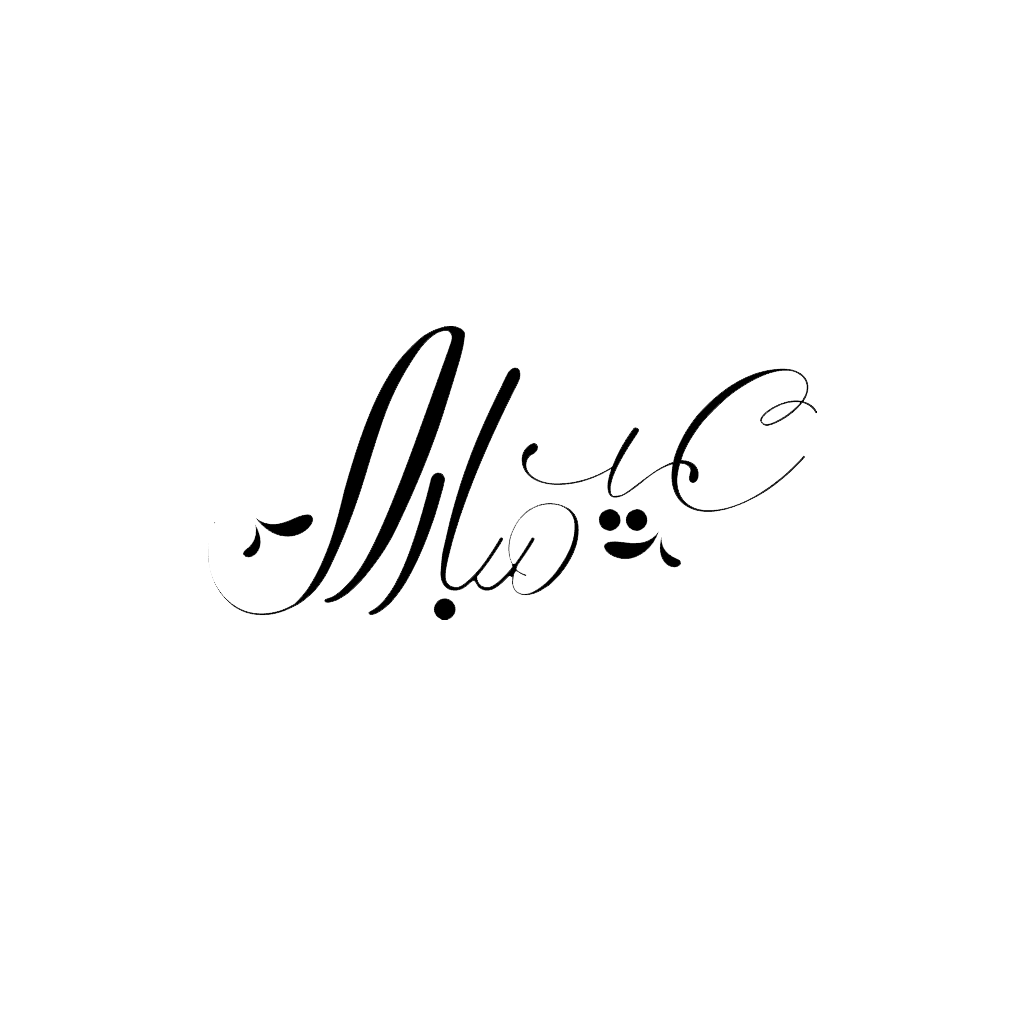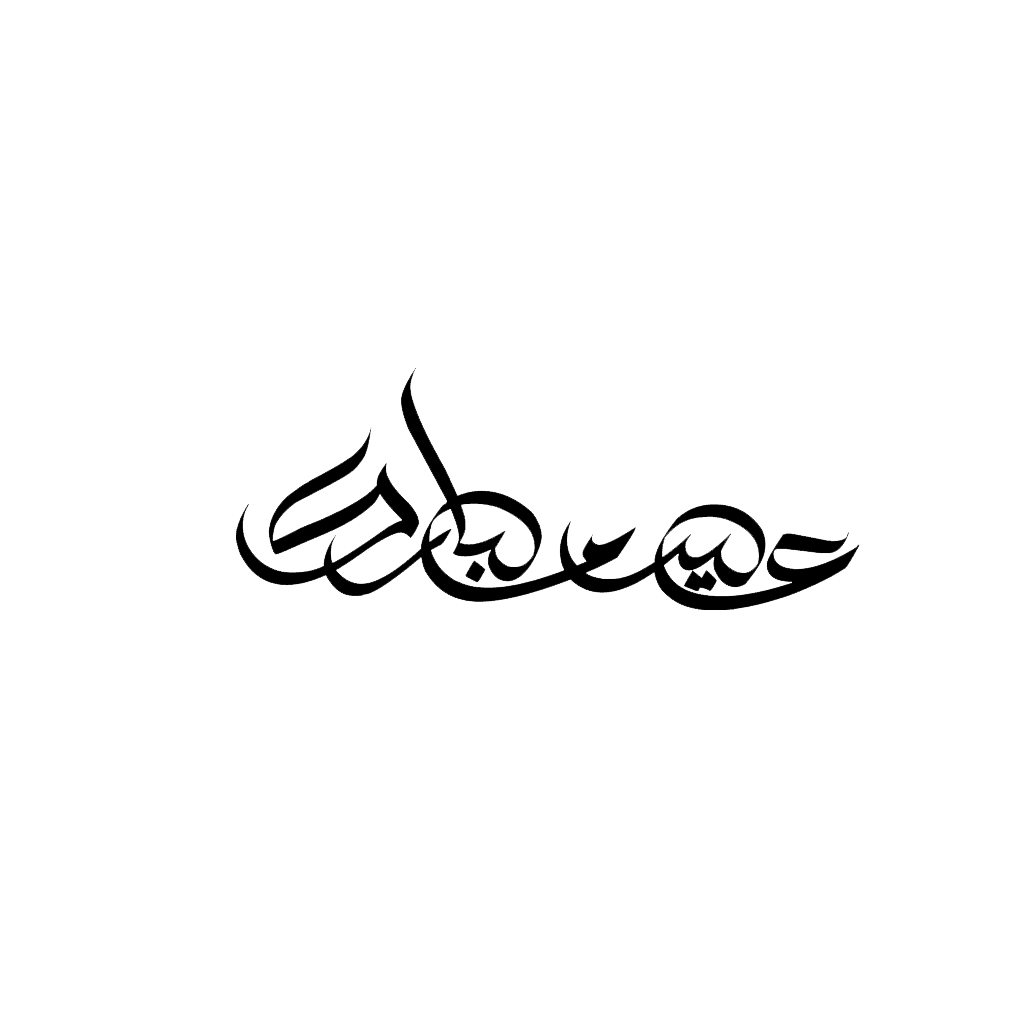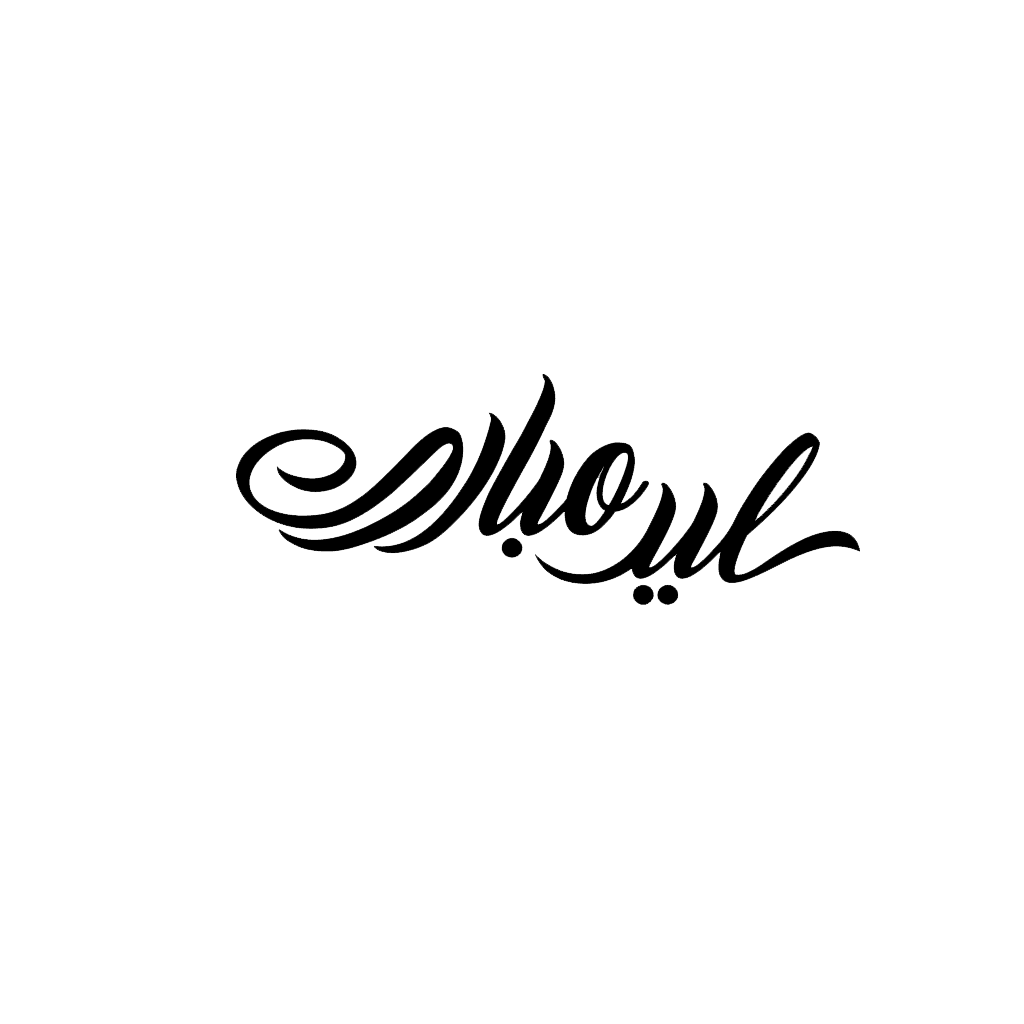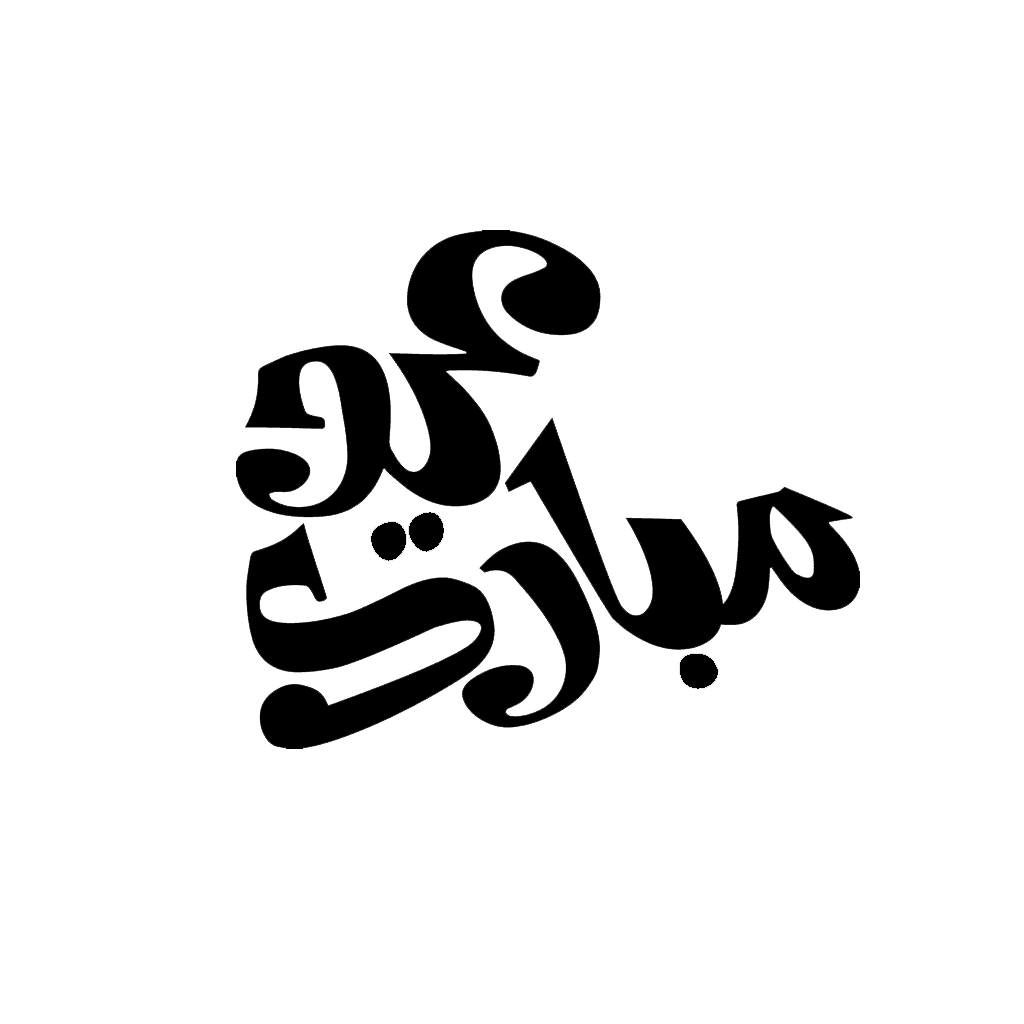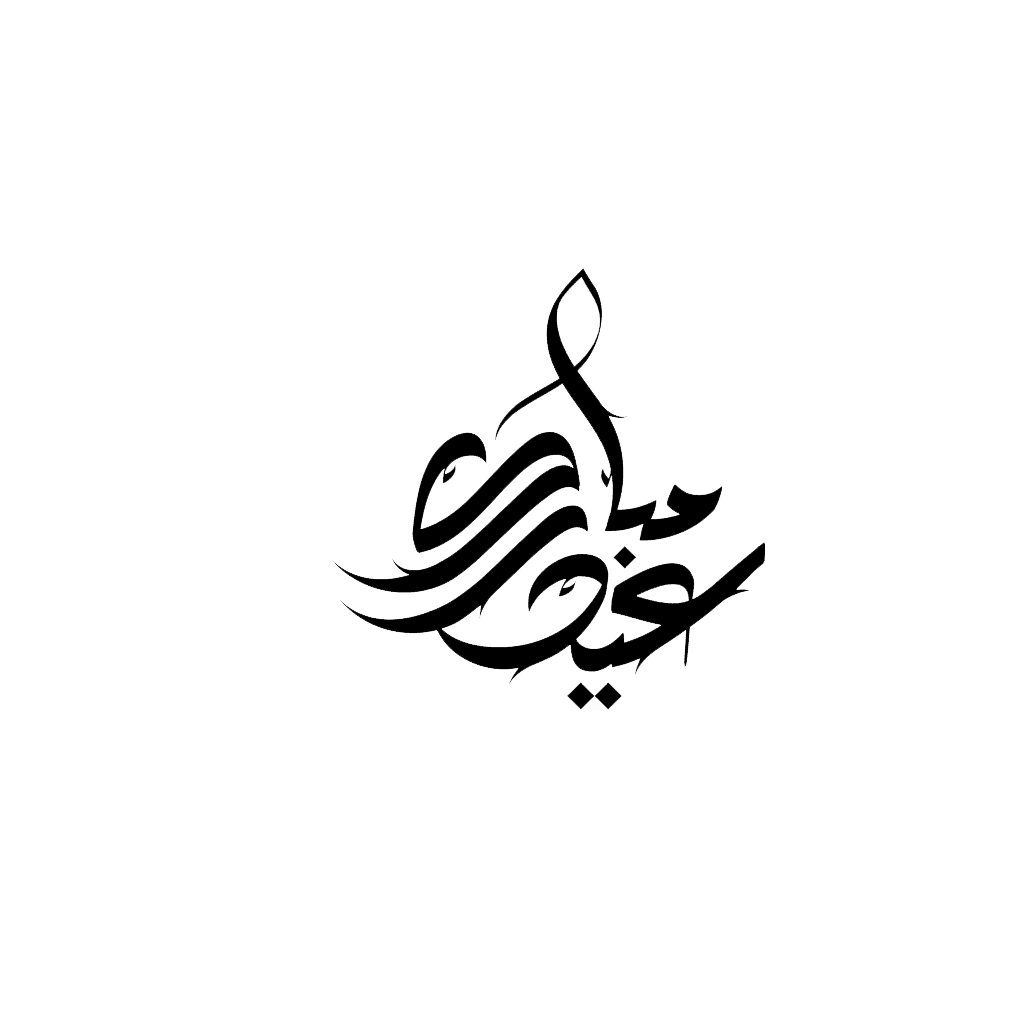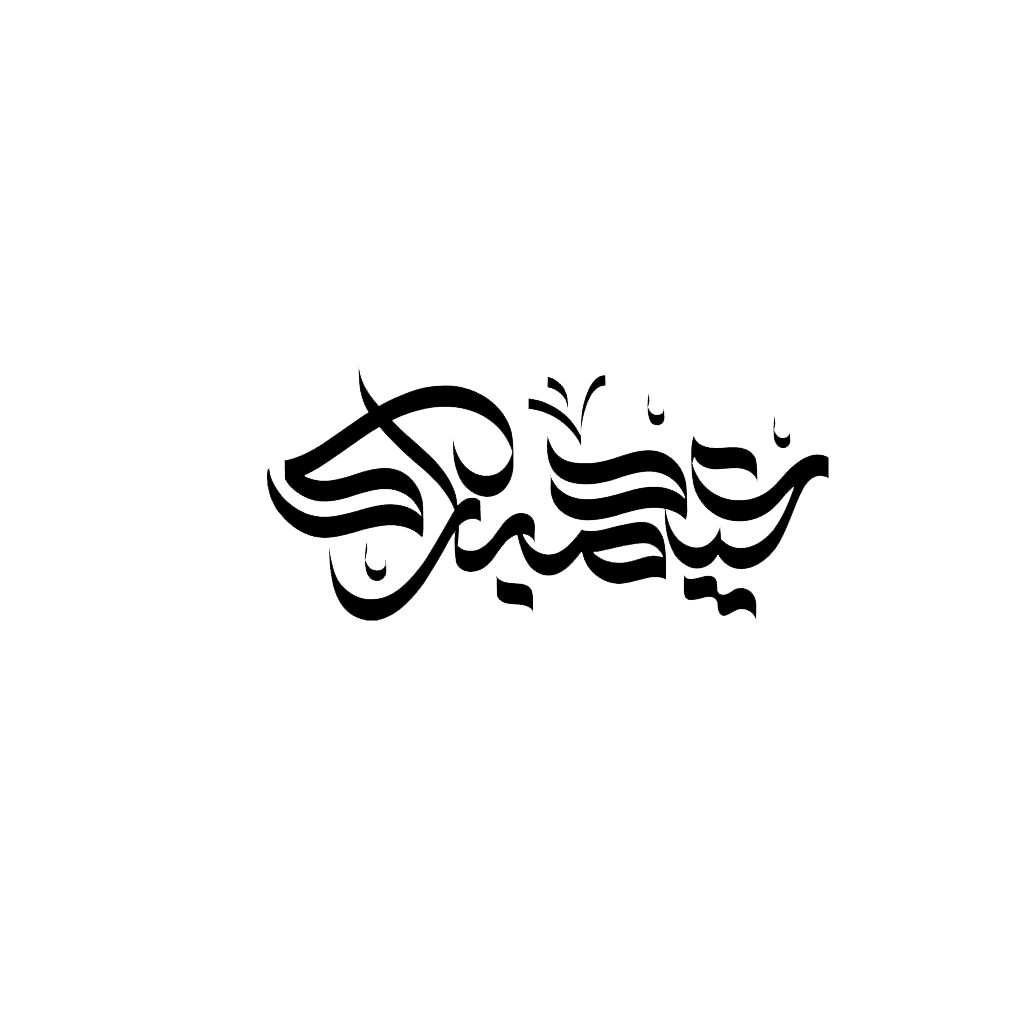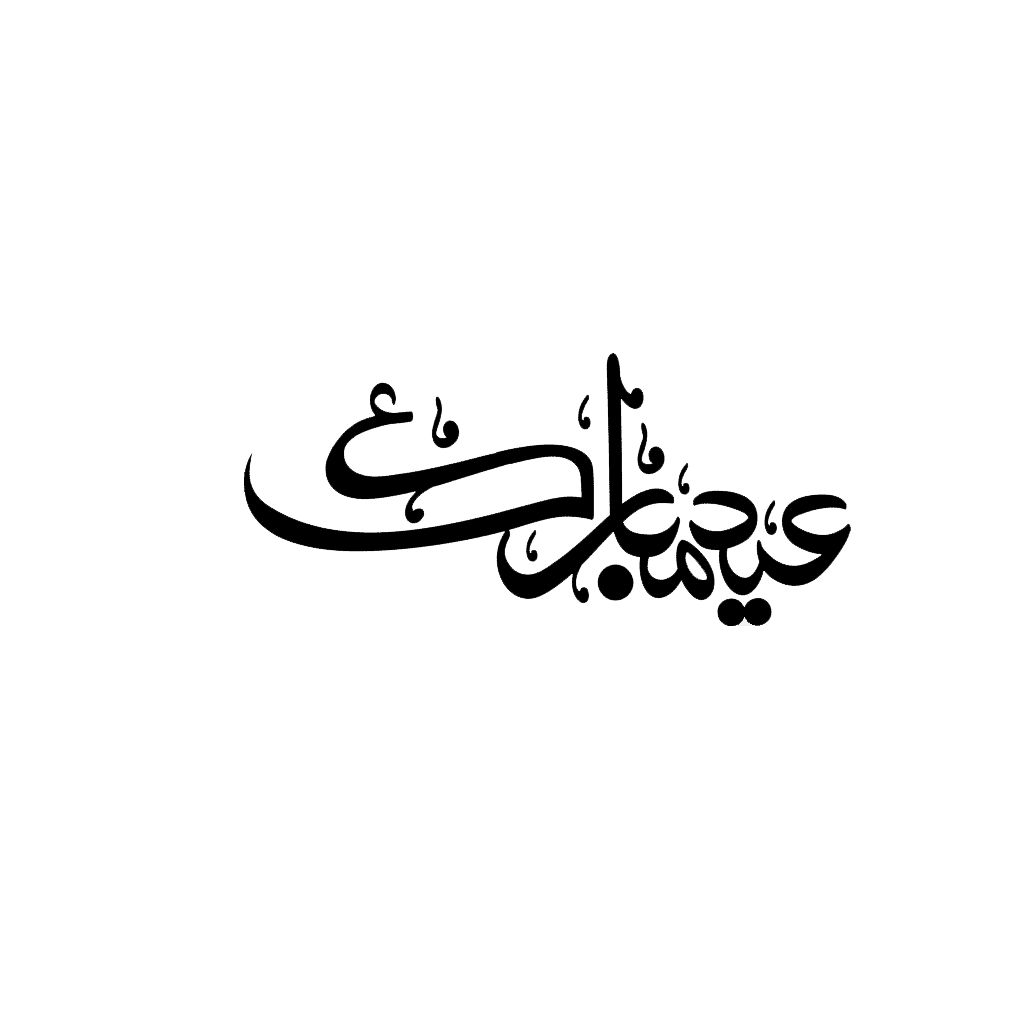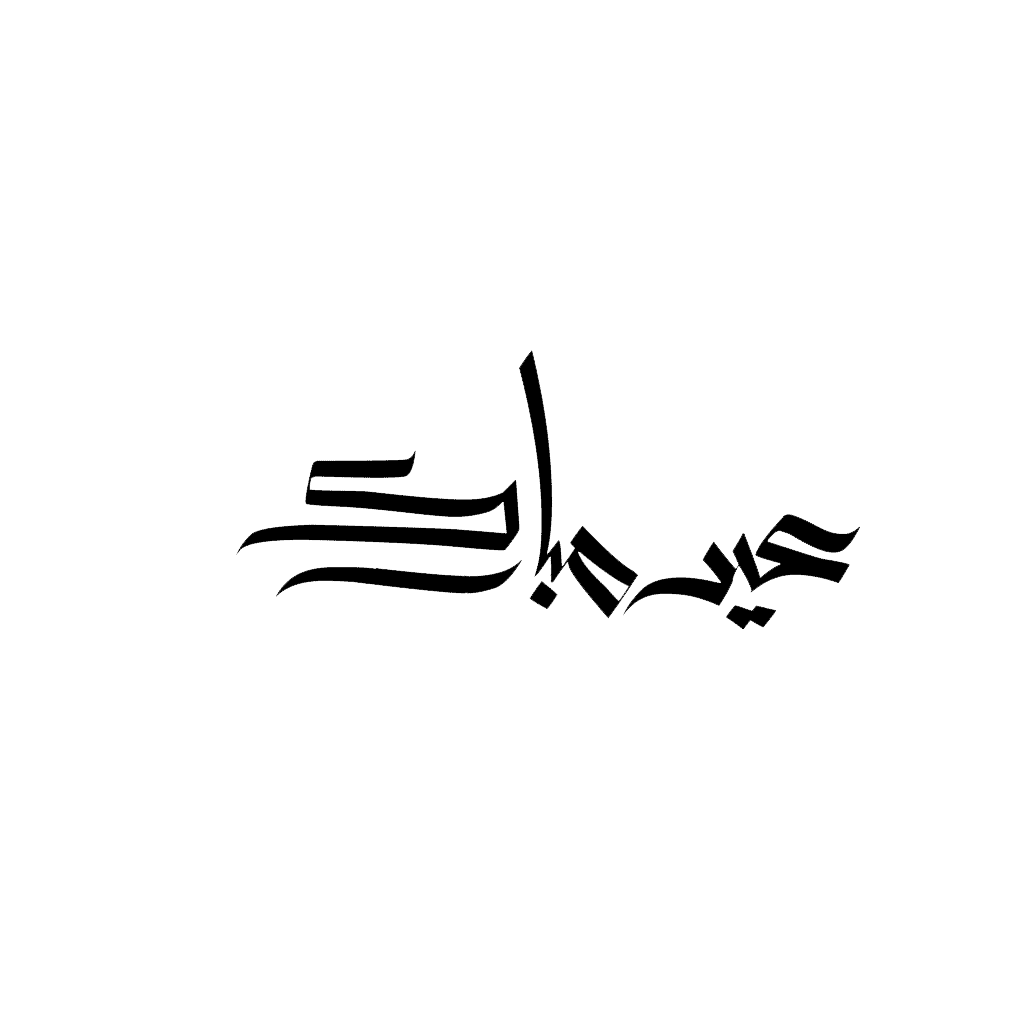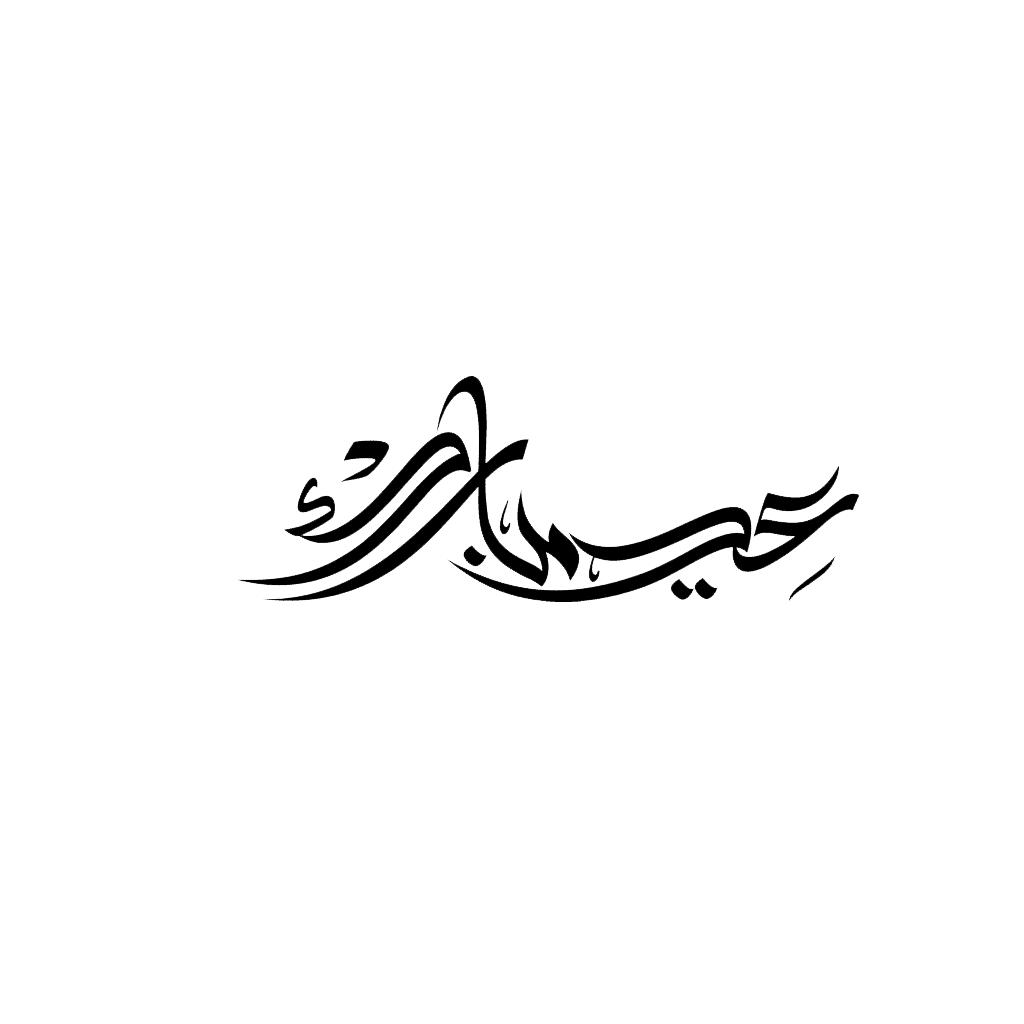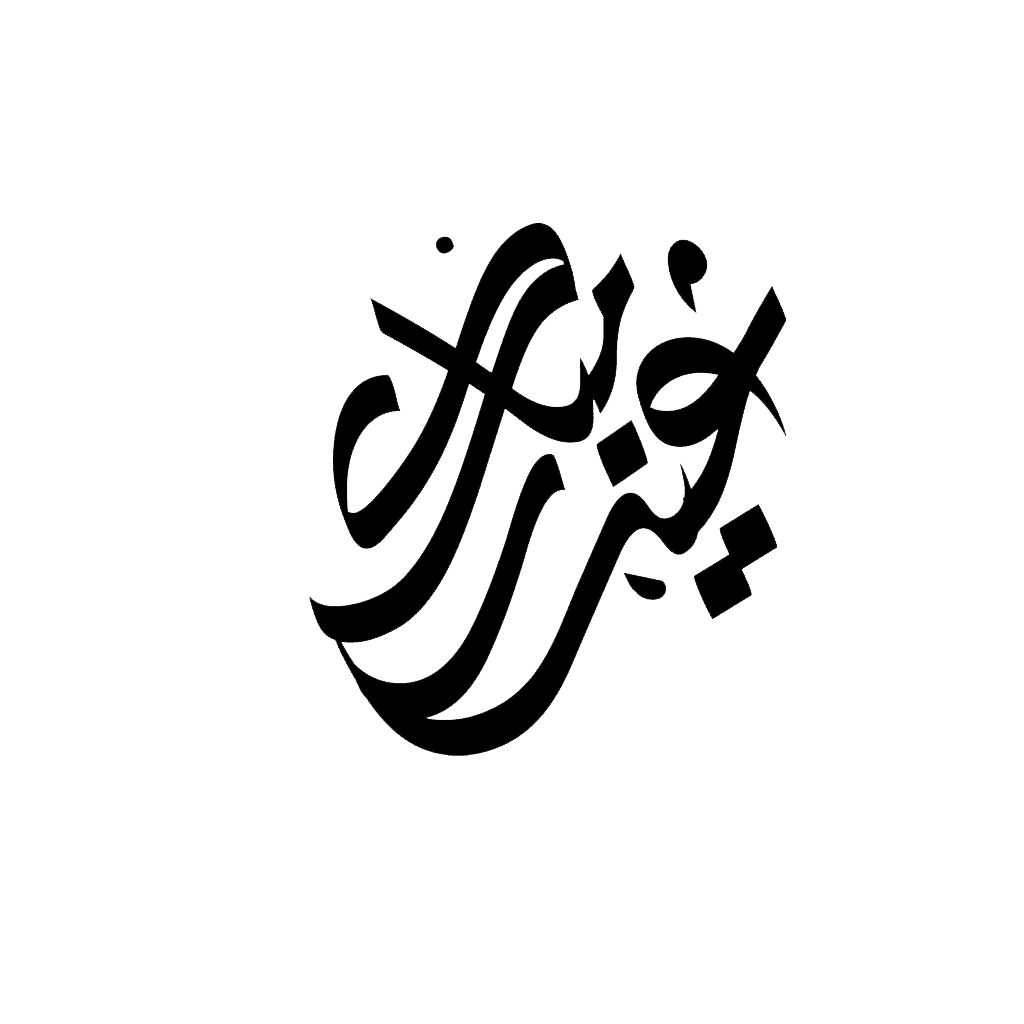
Sindhi Eid Mubarak Font | Symbols
With Map of Sindh
Eid Mubarak Font is a symbol font for your Eid card designs. In this font there are more than 25 Eid Mubarak Symbols included. All the symbols are highly crafted and designed to use for the Eid cards on any Eid.
This font also consists two Maps of Sindh one is simple map while the second one is an Eid ligature in the shape of the map of beloved Sindh.